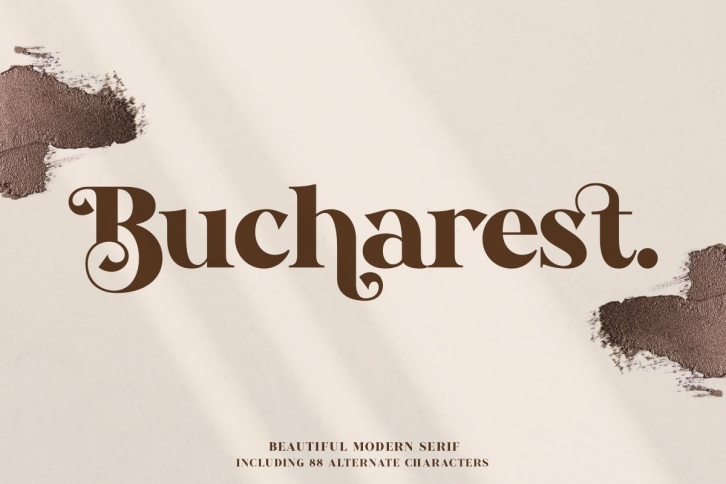
Introducing " Bucharest Beautiful Modern serif " with contrast lines and balanced curves. This font may be conservative and classic, and also may be more playful and modern. A lot of stylish alternates will give you many useful variations for use. Try to play with compositions of curves / alternates letters basic.
Like all of my fonts it is inspired by lettering from the good old past, but it still has a strong modern appearance. Its wide range of stylistic alternates allows versatile design options and works perfectly for headlines, logos, posters, packaging, T-shirts,coffee shops, restaurants, magazine's headers, signs or gift/post cards,cafe's and weddings.
Try to use it in your beauty or travel blogs, you will see how many options you will have with stylish Bestorika.